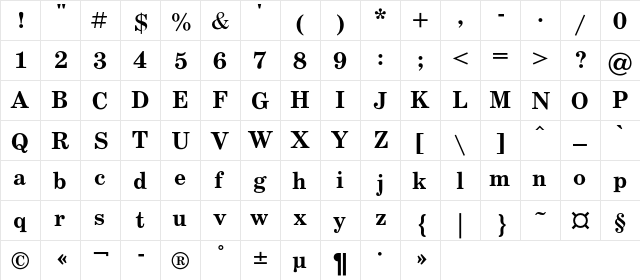
SchoolBookC Bold
Design Context for SchoolBookC Typeface
SchoolBookC is a composed and adaptable typeface that performs quietly and consistently across a wide range of design contexts. Its bold stroke weight gives it real presence on the page.